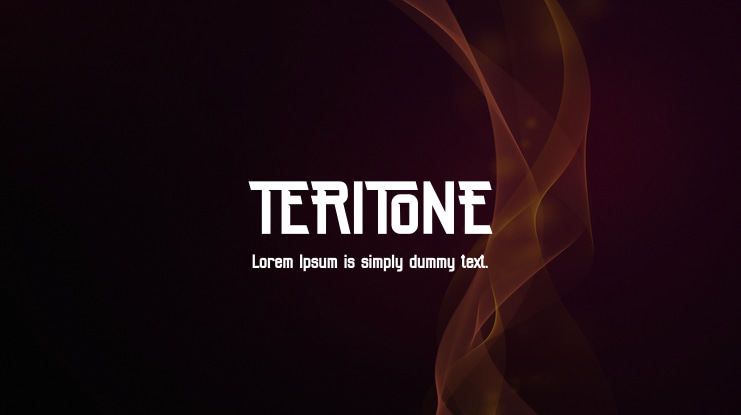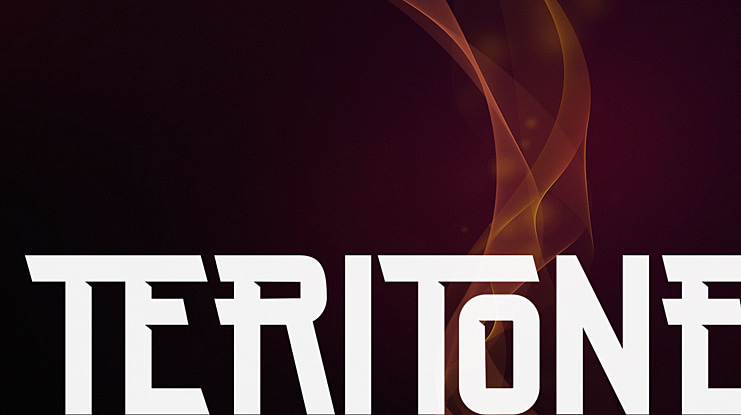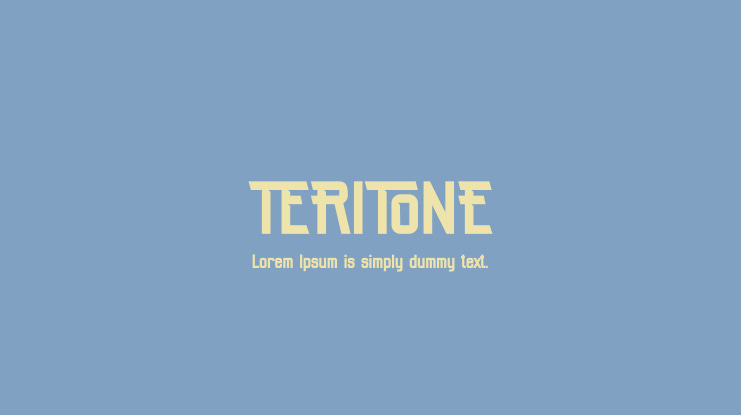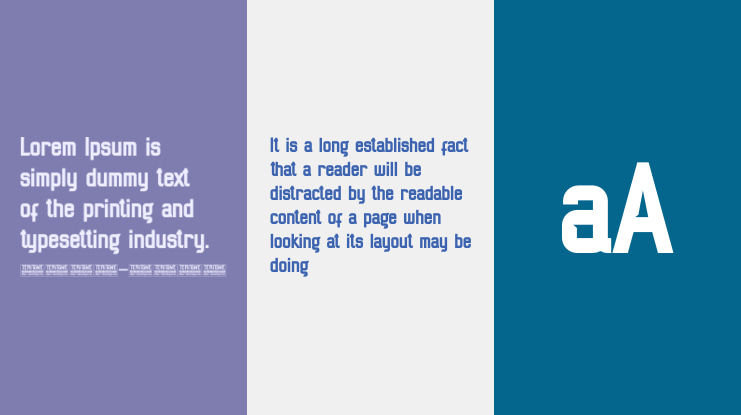
TERITONE Font Family
Sarwo Edhi Prayitno
TERITONE is the sporty sans serif style with uppercase and lowercase looks and feel nice balanced. Provide alternates and ligatures variant style make the design letter looks nice. Honestly it works perfectly for headlines, logos, posters, packaging, T-shirts and much more.